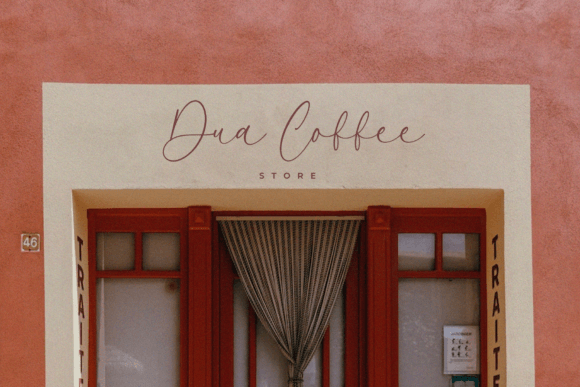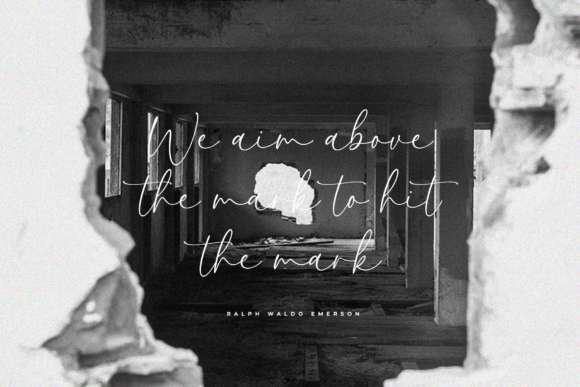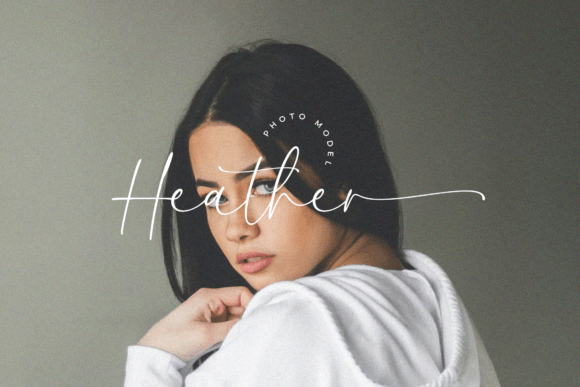
Coolection Font
Introducing Coolection Calligraphy Font, a harmonious blend of timeless beauty and modern elegance. With graceful strokes and delicate curves, it exudes authenticity. Enhance your designs with its captivating swashes and ligatures. Elevate your projects effortlessly with this font, perfect for invitations, branding, and more. Experience elegance redefined.